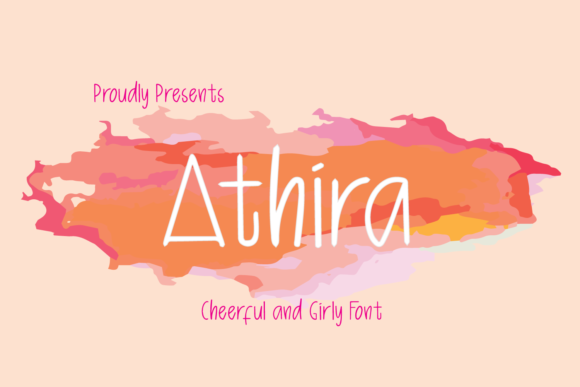
The Perfect Addition to Your Design Palette: Athira Font
Have you ever found yourself stuck in a creative rut, searching for the perfect font to elevate your design? It’s a feeling we’ve all been there – scrolling through font libraries, trying to find that one special something that brings your project to life. For designers, the right font can make all the difference between a good design and a great one. That’s where Athira Font comes in – a beautiful, delicate handwritten font that’s sure to add a touch of personality to your work.
Athira Font is the perfect choice for fashion branding or editorial designs, with its thin, dainty curves and cheerful vibe. Its versatility and charm make it a valuable addition to any designer’s toolkit, and with its effortless style, it’s easy to see why designers are falling in love with this font. Whether you’re working on a high-end fashion campaign or a lifestyle blog, Athira Font is sure to bring a touch of sophistication and whimsy to your design.
Athira Font Key Features
- Unique Characteristics: Elegant, modern script design with a mix of cursive and handwritten elements, suitable for invitations, wedding cards, and other special occasions
- Font Style: Available in Regular and Bold styles, with a range of opentype features and ligatures
Athira Font Review
Overall, I think Athira Font is a decent addition to any designer’s toolkit. Here are some of the things I like about it: ✨
- Unique and stylish design – Athira Font has a beautiful blend of elegance and sophistication that makes it perfect for high-end branding and design projects.
- High legibility – The font is very easy to read, even at smaller font sizes, making it a great choice for body text.
- Support for multiple languages – Athira Font includes a wide range of language support, making it a great choice for designers working on international projects.
However, like any font, Athira is not without its limitations: ⚠️
- Limited customization options – While the font’s default styles are great, there are limited options for customizing it to fit your specific design needs.
- No bold weight – The font’s weight is a bit too light, which can make it difficult to use for headings and titles.
- Not ideal for display use – While the font is great for body text, it may not be the best choice for display use, such as in headings or titles.
Overall, I think Athira Font is a solid choice for designers who need a high-quality, elegant font for their projects. While it has some limitations, its unique design and high legibility make it a great addition to any designer’s toolkit.
Tips for Getting the Most Out of Athira Font
Athira Font is perfect for:
- Creativity and design projects
- Business and professional presentations
Remember to experiment with different font sizes, styles, and colors to achieve the desired effect.
Alternatives to Athira Font for Designers
Athira Font is a modern sans-serif typeface, but sometimes designers may need alternatives to suit their project’s requirements. Here are a few options to consider:
Montserrat is a sans-serif typeface designed by Julieta Ulanovsky. It’s a great alternative to Athira Font when you need a font with a strong urban feel. Montserrat has a more geometric and industrial look, making it perfect for modern and edgy designs.
Comparison: Montserrat has a more condensed and geometric look compared to Athira Font’s sleek and modern feel. Use Montserrat when you need a font that exudes a sense of urbanity and modernity.
Lato is a sans-serif typeface designed by Łukasz Dziedzic. It’s a great alternative to Athira Font when you need a font with a friendly and approachable feel. Lato has a more rounded and humanistic look, making it perfect for designs that require a sense of warmth and friendliness.